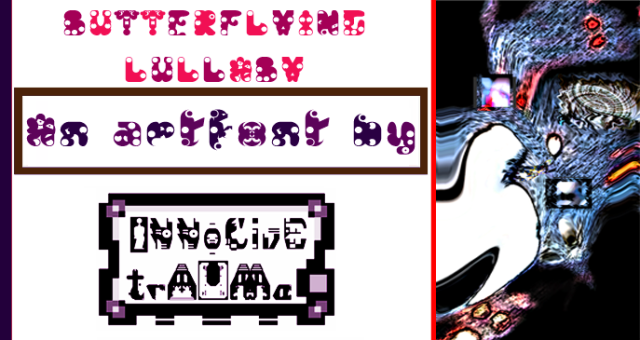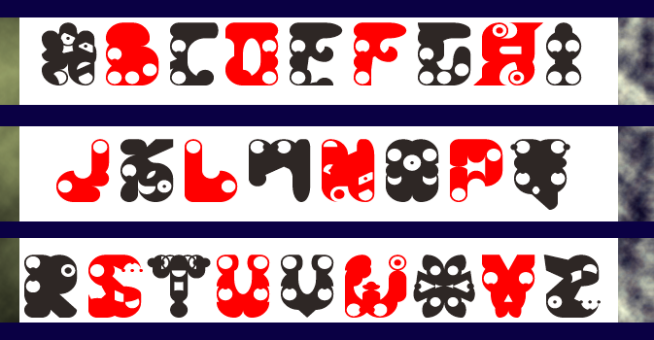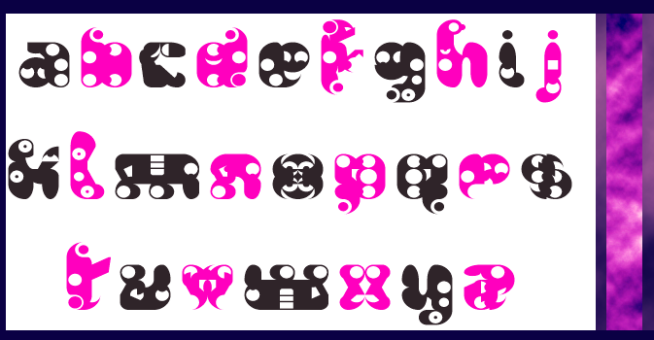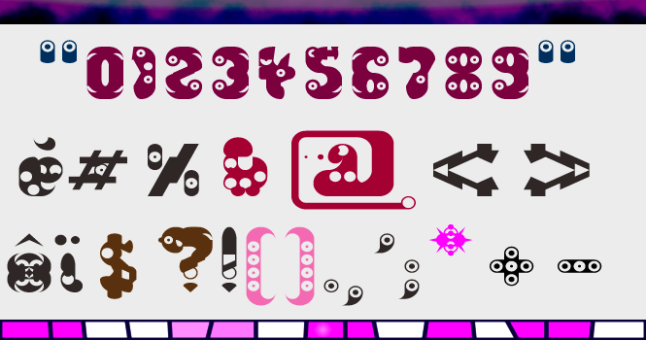
trAUMa 22 / Butterflying Lullaby
"Butterflying Lullaby", like all the "trAUMa" series, works at the frontier between Art & Type Design, Figuration & Abstraction, each font is a comprehensive world in which every glyph is a "living" entity. But put together they can produce your messages in the most accurate way.